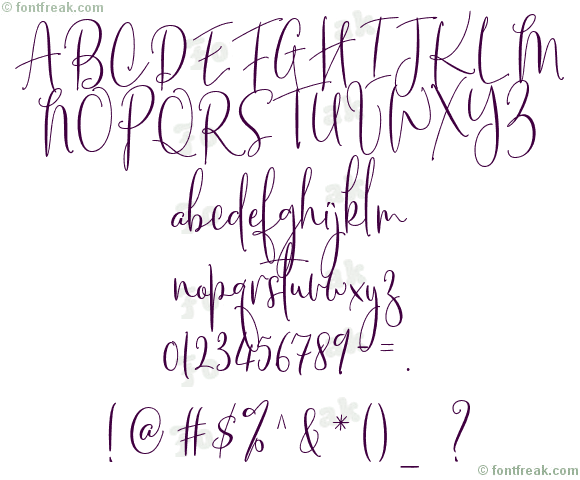
CherySantos-Regular
About CherySantos-Regular
CherySantos-Regular by Aqeela Studio is a charming handwritten font that exudes warmth and personality. This font features fluid, organic strokes with a moderate stroke weight, offering a delightful contrast that enhances its readability. The letterforms are gracefully spaced, allowing for clear legibility while maintaining a casual, approachable feel. The decorative elements in this typeface, particularly its elegant curves and playful swashes, imbue it with a sense of creativity and artistry, making it an excellent choice for various design projects.
Ideal use cases for CherySantos-Regular include wedding invitations, where its romantic flair can beautifully convey heartfelt sentiments. It is also perfect for crafting eye-catching movie posters, as its unique style captures attention and adds character. Additionally, this font shines in restaurant menus, bringing a touch of artistry to the dining experience. Small business owners can leverage its charm in branding materials, such as logos and promotional flyers, to create a memorable impression. Content creators will find CherySantos-Regular a valuable asset for social media graphics, as it can elevate the visual appeal of posts and stories, engaging audiences effectively.